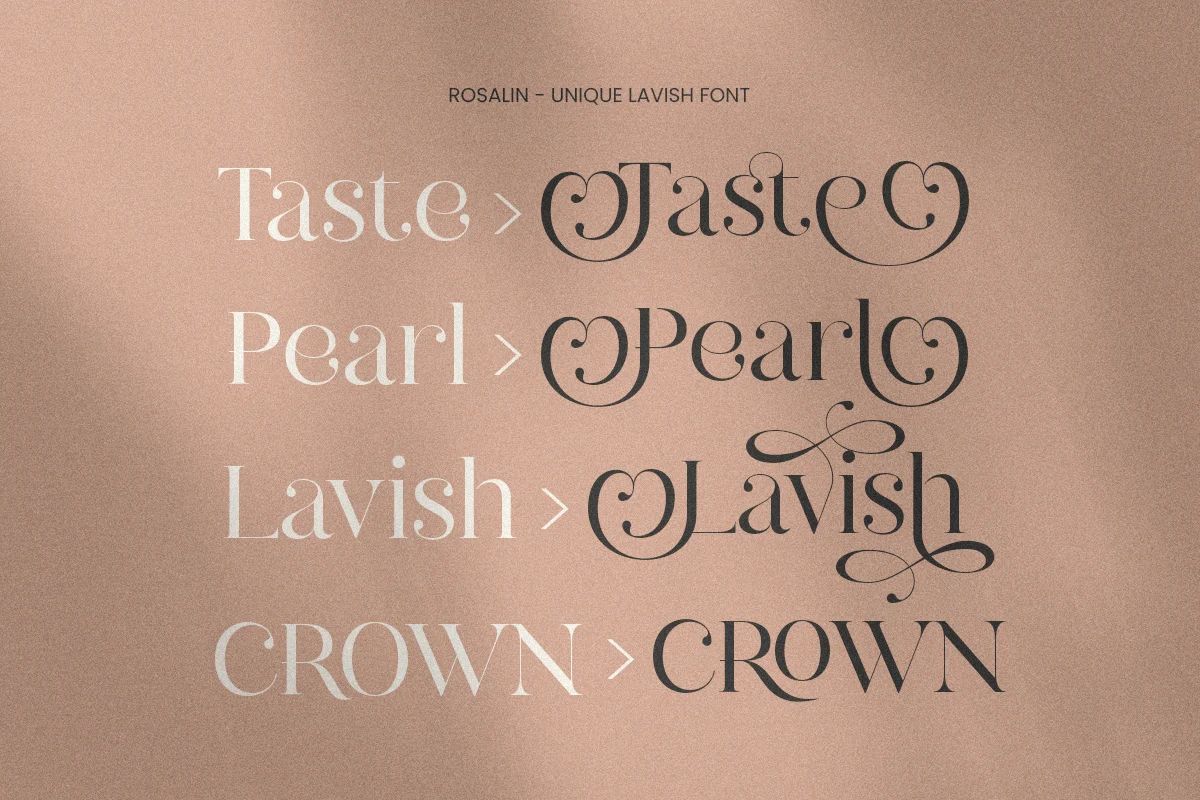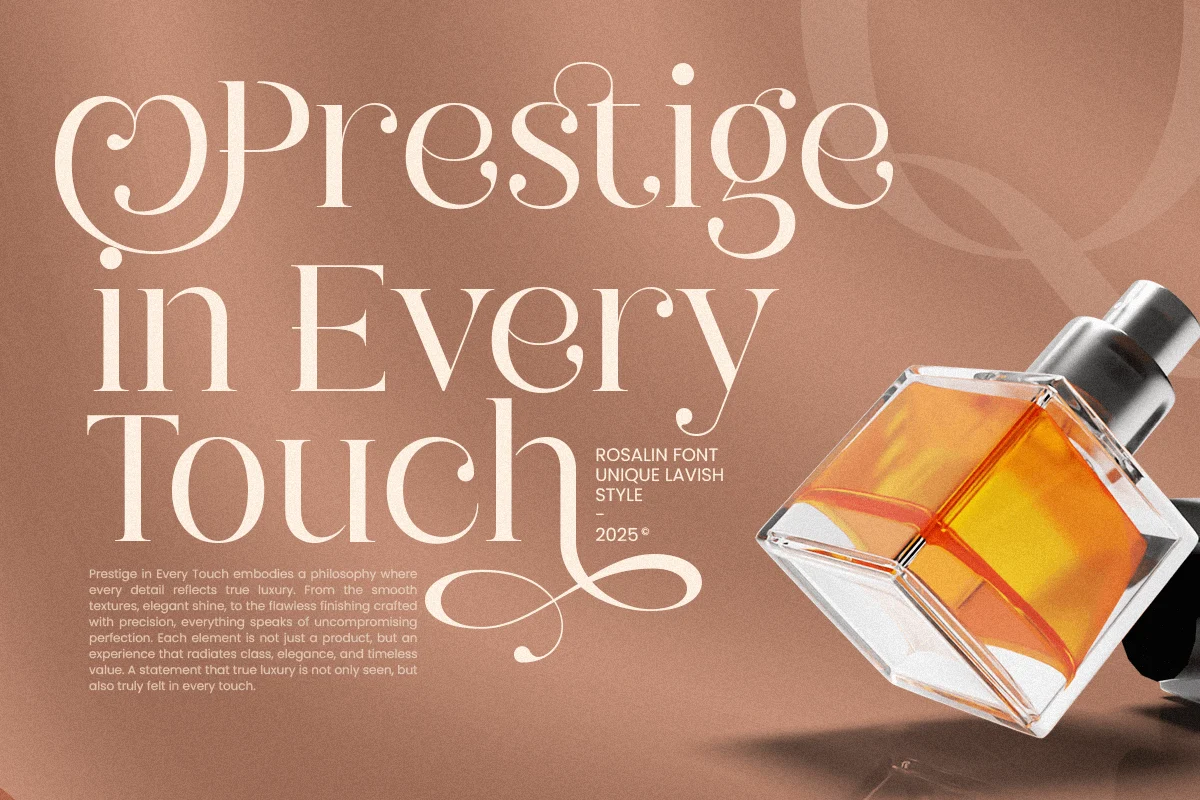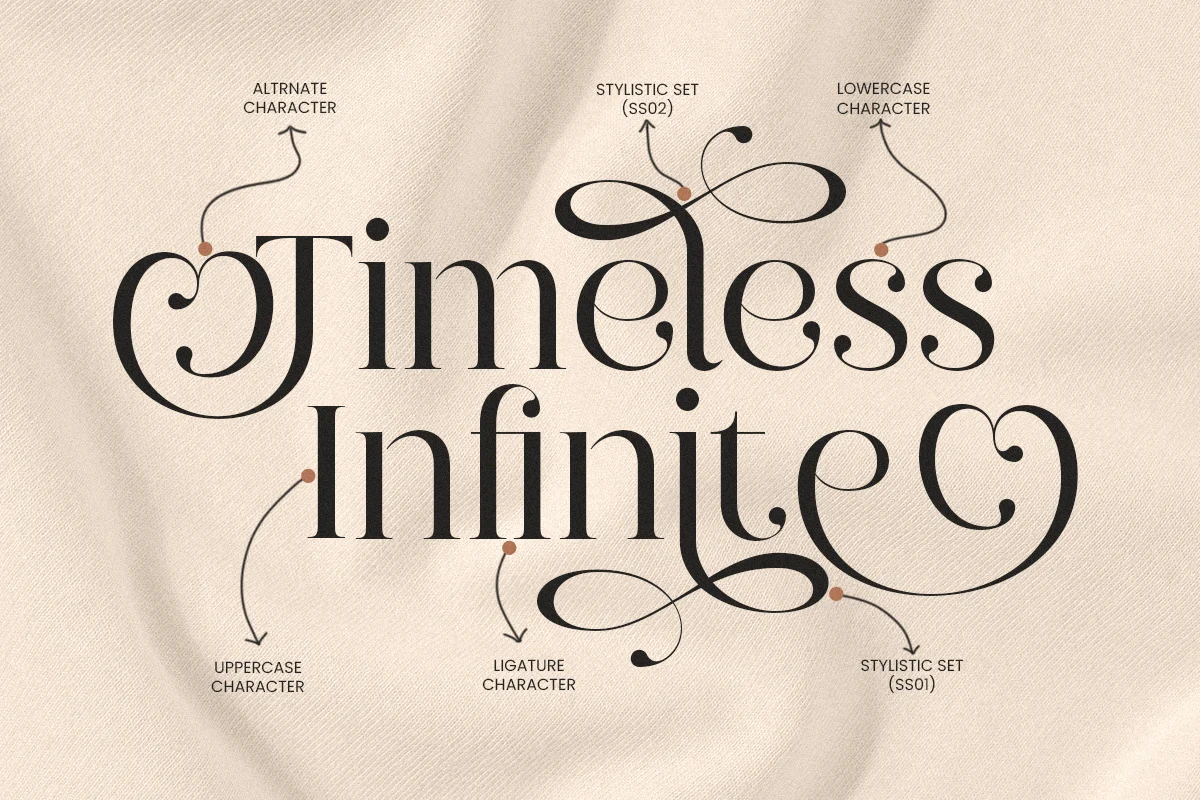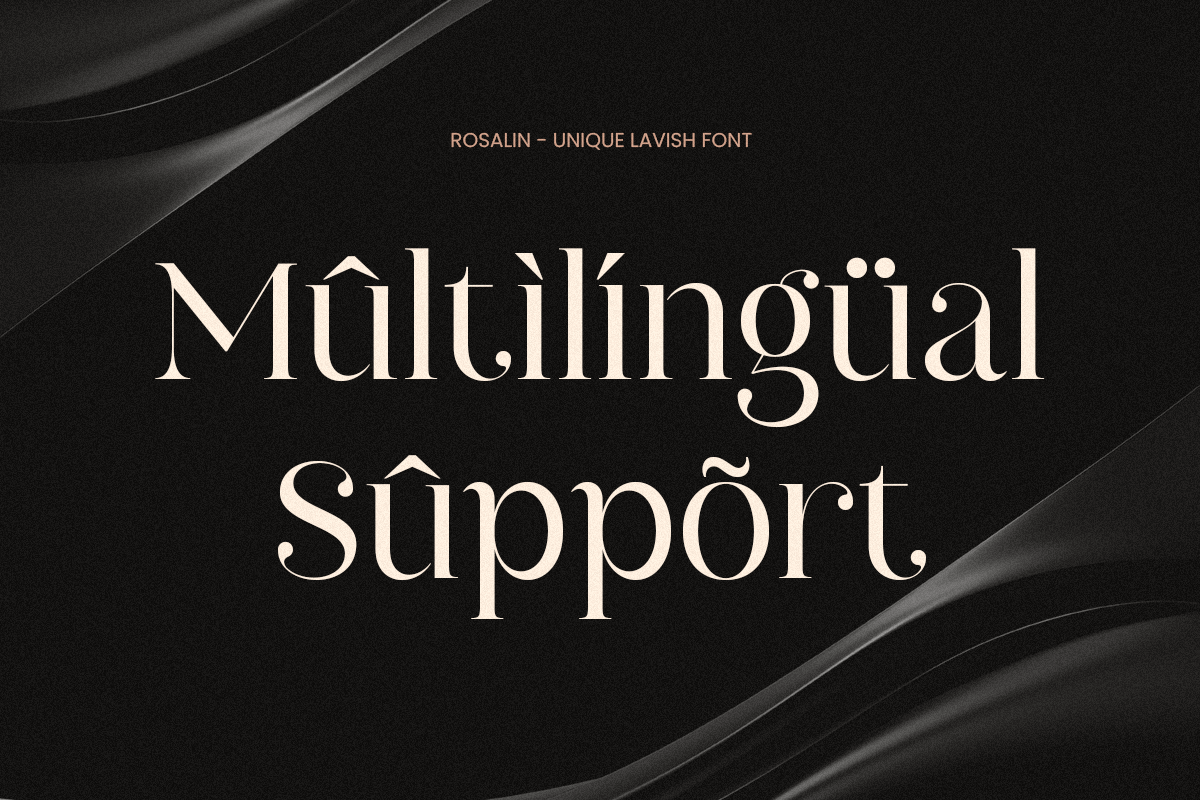
Rosalin – Unique Valentine Lavish Font
Rosalin is a unique Valentine’s Day‑inspired lavish font that brings elegance, romance, and expressive charm to every design. Its graceful letterforms and flowing decorative details evoke feelings of love and celebration, making it ideal for projects that call for an emotional and artistic touch. With a harmonious blend of ornate strokes and modern style, this typeface stands out as a beautiful choice for romantic and luxury applications.
Perfect for Valentine’s Day graphics, wedding invitations, greeting cards, and heartfelt branding, Rosalin adds personality and warmth to headlines and logos. Its delicate curves and artistic flair make it a standout display font for love‑centered events, social media graphics, and packaging that needs a lavish, stylish presence. Whether used big and bold or elegantly refined, Rosalin conveys passion with sophistication.
Designers looking to enhance romantic campaigns, boutique branding, or decorative signage will find Rosalin's expressive style both versatile and memorable. Its unique combination of elegance and flair makes it a go‑to choice for projects celebrating love, affection, and luxury.
Rosalin – Unique Valentine Lavish Font Features
- Romantic and decorative script letterforms ideal for love‑themed projects
- Perfect for Valentine’s Day greetings, wedding invites, and romantic branding
- Elegant swashes and stylistic alternates for expressive typography
- Includes uppercase, lowercase, numerals, punctuation, and special glyphs
- Great for logos, headlines, packaging, and social media graphics
- Works well across print and digital design applications
- Adds a rich, artistic flourish to invitations and gift packaging
- Optimized for premium, heartfelt visual communication
Bring romantic elegance to your creative work with Rosalin – a lavish, unique font designed for love‑inspired designs 💖.